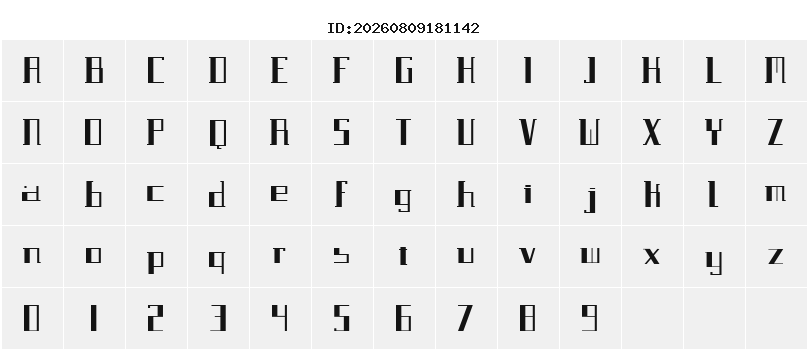
• Font Name: Paralela
• Full Font Name: Paralela
• PostScript Name: Paralela
About Paralela.ttf
Paralela.ttf is a modern, elegant sans-serif font designed for ultimate readability and visual harmony. Perfect for branding, headlines, web design, and print materials.